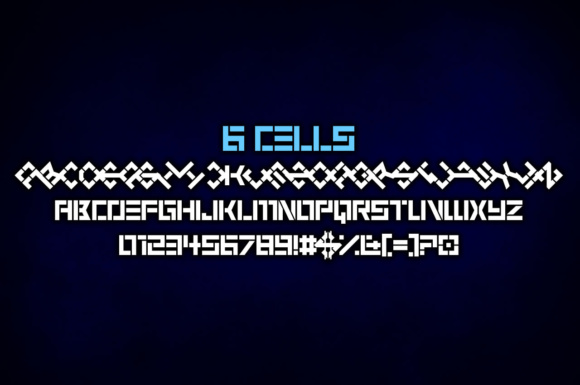
The Designer’s Delight: Exploring the 6 Cells Font by Chequerd Ink
I’ll never forget the time I was working on a project for a client who needed a bold, eye-catching font to capture the essence of their brand. As I scrolled through my font library, I stumbled upon the 6 Cells font by Chequerd Ink. Its unique, geometric design immediately caught my attention, and I knew I had to give it a try. In this article, I’ll share my experience with the 6 Cells font, its features, and how to make the most of it in your designs.
- ✨ Unique geometric design that adds a touch of modernity to any project
- 💡 Extensive range of OpenType features, including stylistic alternates and glyphs
- 🎨 Versatile and suitable for various design projects, from logos to headings
While the 6 Cells font is an excellent choice for many projects, there are a few things to keep in mind:
- 🤔 Limited suitability for body text, as it’s primarily designed for display purposes
- ⚠️ Some characters may not work well at very small font sizes, so it’s essential to test and adjust accordingly
The Designer Inspiration
The 6 Cells font was designed by Chequerd Ink, a creative studio known for its innovative approach to typography. According to the studio, the font was inspired by the geometric shapes and clean lines of modern architecture. The designers aimed to create a font that would be both bold and elegant, making it perfect for display purposes.
| What is the 6 Cells font best suited for? | The 6 Cells font is ideal for display purposes, such as headings, titles, and logos. |
| Can I use the 6 Cells font for body text? | While possible, the 6 Cells font is not recommended for body text due to its display-focused design. It’s best used for headings and titles. |
| Does the 6 Cells font support OpenType features? | Yes, the 6 Cells font supports a range of OpenType features, including stylistic alternates and glyphs. |